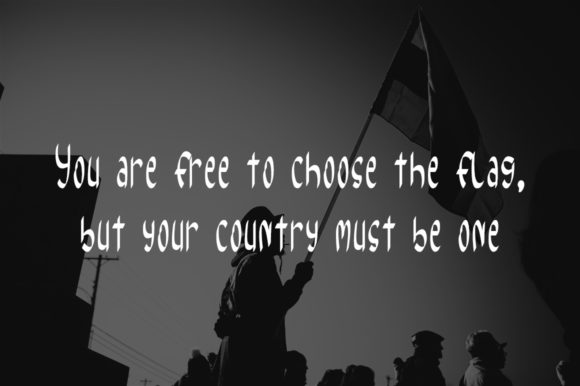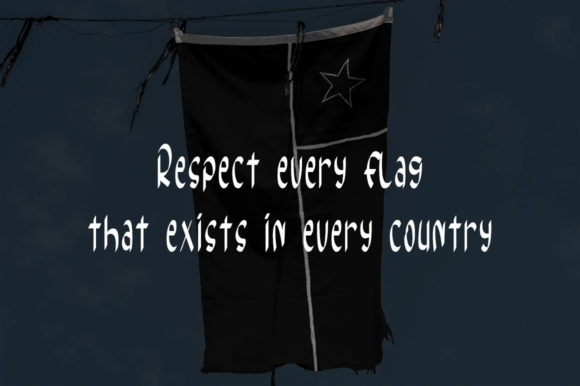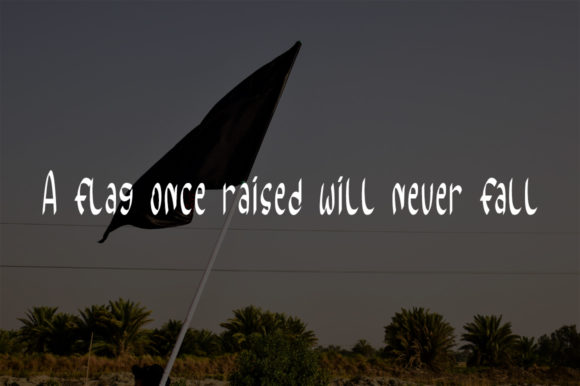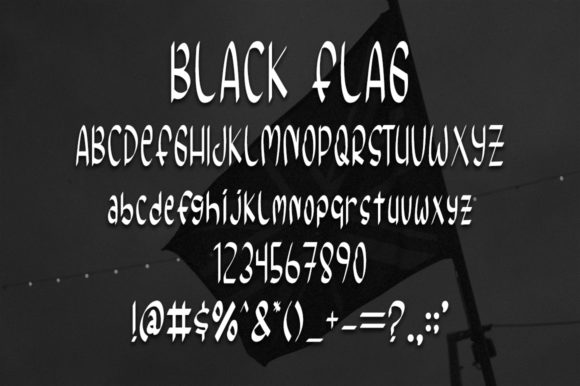
The Ultimate Guide to Black Flag Font: A Designer’s New Best Friend
An Honest Review of Black Flag Font
So, what makes Black Flag Font so special? Let’s dive into the good stuff and, of course, a few quirks I’ve noticed.
- ✨ Trendy Characters: Black Flag Font features incredibly trendy characters that will make your designs stand out from the crowd.
- ✅ Versatility: This font matches a wide range of designs, from bold and edgy to modern and sleek.
- 💯 Legibility: Despite its bold style, Black Flag Font remains surprisingly legible, even at smaller sizes.
- 🤔 Limited Use Cases: While Black Flag Font is amazing for display purposes, it may not be the best choice for body text or smaller sizes.
- ⚠️ Glyph Limitations: Some users have reported that the font could benefit from more glyphs and special characters.
One of the best things about Black Flag Font is its support for OpenType features and glyphs. These features allow you to customize your text with stylistic alternates, ligatures, and more. To access these features:
The Backstory of Black Flag Font
Black Flag Font was designed by a team of creatives who wanted to create a font that embodied the spirit of rebellion and nonconformity. Inspired by the bold, edgy aesthetic of punk rock and street art, Black Flag Font is the perfect choice for designers who want to make a statement.
Q: What is Black Flag Font best used for?
A: Black Flag Font is best used for display purposes, such as headings, titles, and emphasis. It’s perfect for designs that need a bold, edgy look.
Q: Is Black Flag Font available in different weights or styles?
A: Currently, Black Flag Font is available in a single weight. However, the designers may release additional weights or styles in the future.